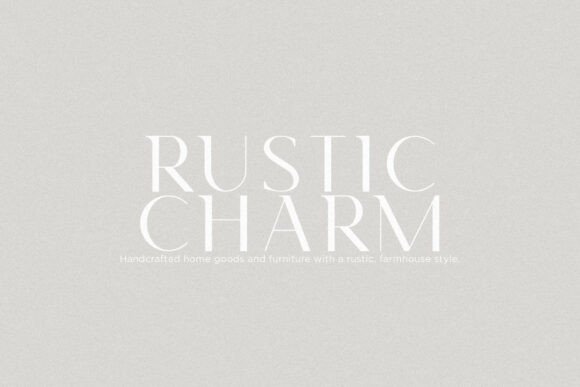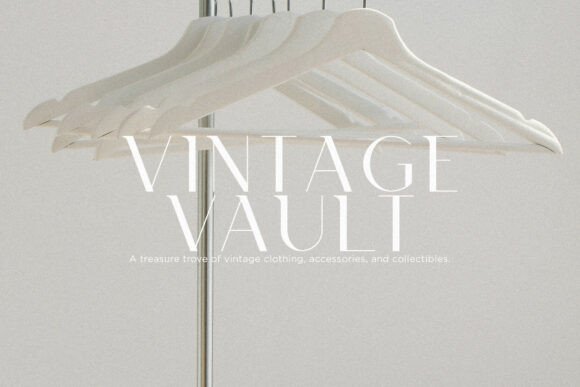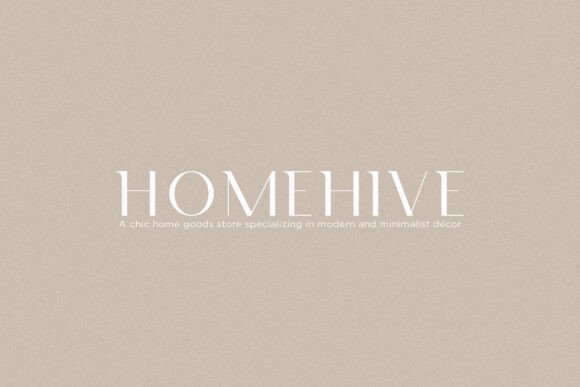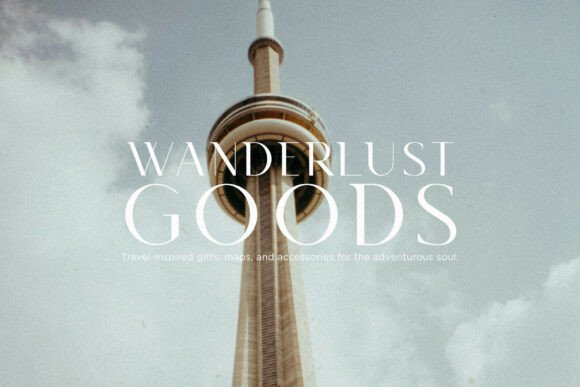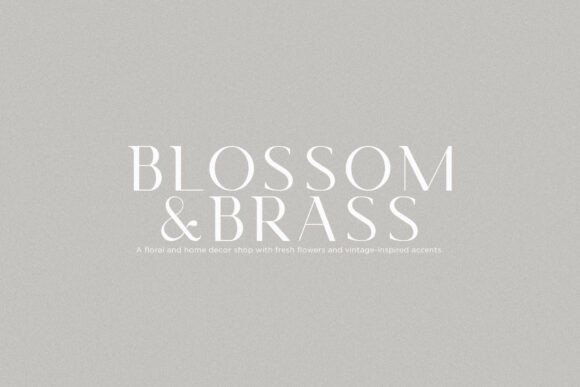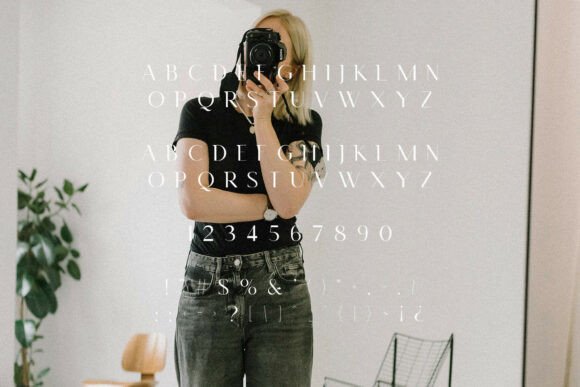
I still remember the countless hours I spent searching for the ideal font for a client’s branding project. The design brief called for something elegant, yet modern; sophisticated, yet approachable. I scrolled through font libraries, tried out dozens of options, but nothing seemed quite right. That was until I stumbled upon Charme – Modern Semi Serif. ✨
First Impressions: A Love Affair with Charme
As soon as I laid eyes on Charme, I knew I had found the one. This stylish and versatile font effortlessly blends the elegance of serifs with a contemporary twist. Its refined letterforms feature subtle curves and sharp edges, making it perfect for both formal and creative designs.
An Honest Review: The Good, the Bad, and the Quirks
- ✨ Versatility: Charme works beautifully for branding, editorial, and digital projects.
- ✅ Elegant letterforms: The subtle curves and sharp edges create a sophisticated look.
- 💻 Digital friendliness: Charme is optimized for screen use, making it perfect for websites and social media graphics.
- 🤔 Some manual kerning required: Depending on the project, you might need to adjust kerning for optimal results.
- Experiment with OpenType features, such as stylistic alternates, to add visual interest.
- Explore the Character panel for OpenType features, such as glyphs and ligatures.
The Story Behind Charme: Designer Inspiration
Charme was designed with the modern creative in mind. Its creator aimed to craft a font that would blend seamlessly into both digital and print environments. Inspired by classic serif fonts and modern design trends, Charme offers a unique take on traditional typography.
Q: What makes Charme suitable for both formal and creative designs?
A: Charme’s elegant letterforms and subtle curves make it perfect for formal designs, while its sharp edges and modern feel suit creative projects.
Q: Does Charme support OpenType features?
A: Yes, Charme offers advanced OpenType features, including stylistic alternates, glyphs, and ligatures.
Q: Is Charme optimized for digital use?
A: Absolutely! Charme is designed to perform beautifully on screens, making it perfect for websites, social media graphics, and digital marketing materials.